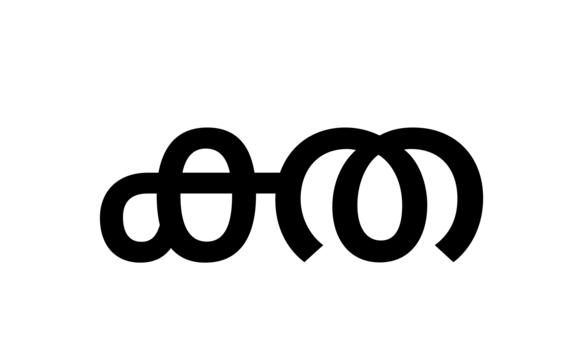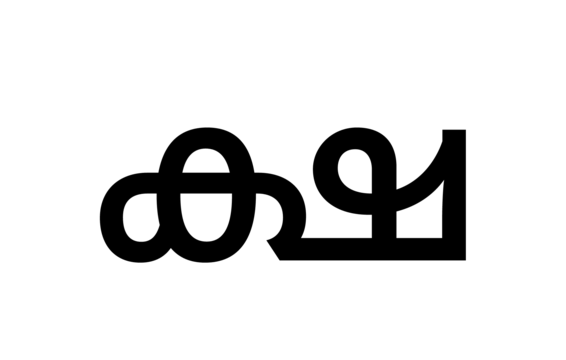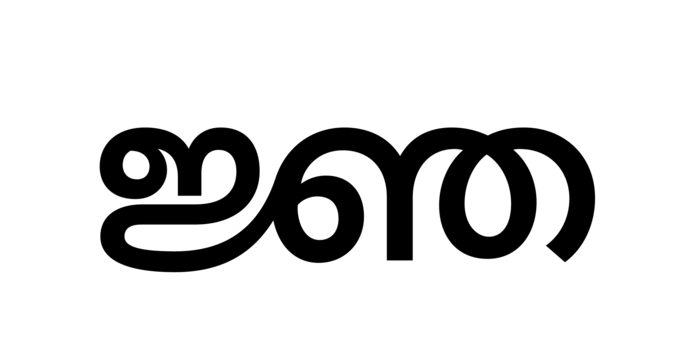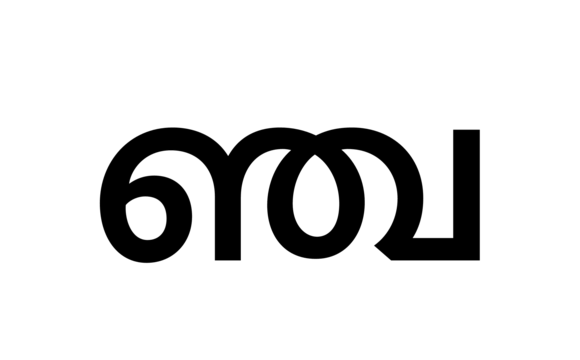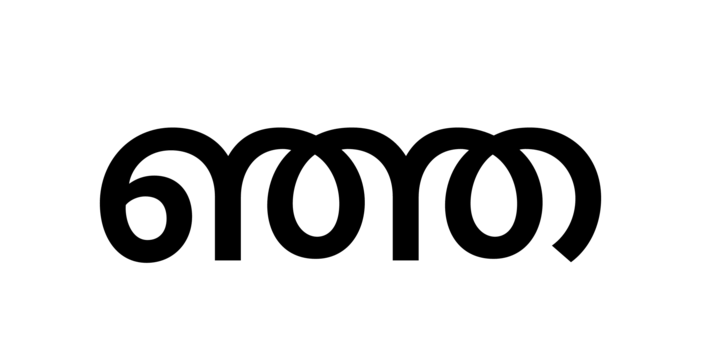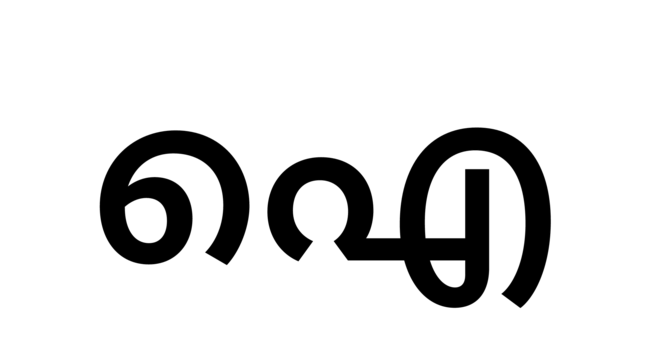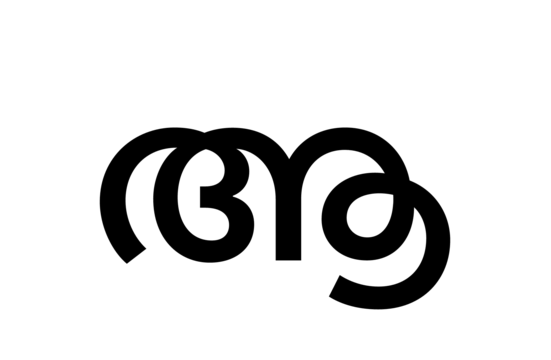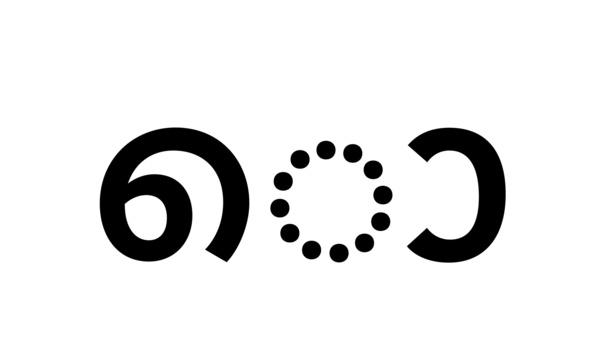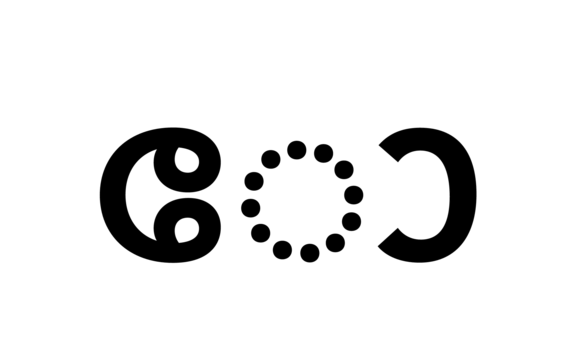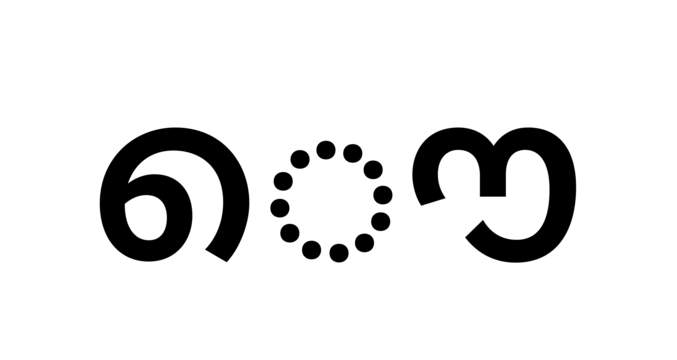
Kohinoor Malayalam is an all-around Malayalam for software engineers and branding specialists. Its letterforms feature open counterforms, and strokes with low contrast. Thanks to its clear appearance, the fonts are easy to work with, and their results are inviting to read. Kohinoor Malayalam is an ideal choice for use in text-heavy multilingual projects, including app design, corporate design, editorial design, signage systems, and television subtitling. Each font contains 395 glyphs, offering a character set fully supporting all necessary Malayalam-script conjuncts and ligatures. Kohinoor Malayalam is part of our larger Kohinoor family, containing fonts for all of India's 11 official writing system. Taken together, they support hundreds of languages that are spoken natively by billions of people around the world. Before ITF released Kohinoor Malayalam as a retail product, its fonts were embedded inside of several products from Sony, and other manufacturers.
| Family Name | Kohinoor Malayalam |
|---|---|
| Designer(s) | Satya Rajpurohit |
| Release Date | February 7, 2020 |
| Available Style | Light, Regular, Medium, Semibold, Bold |
| Classification | Sans |